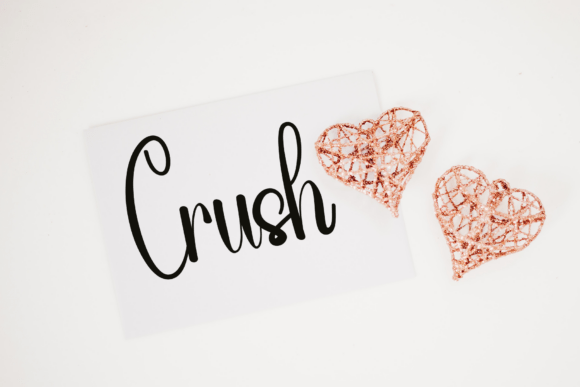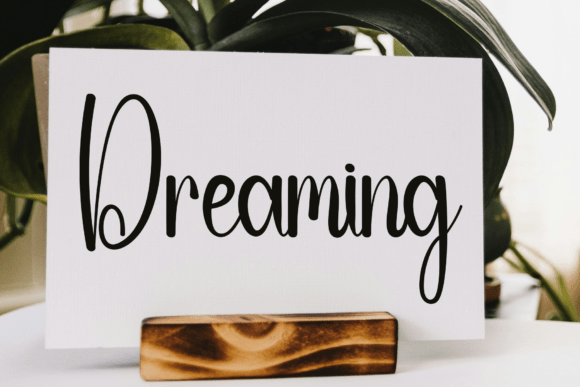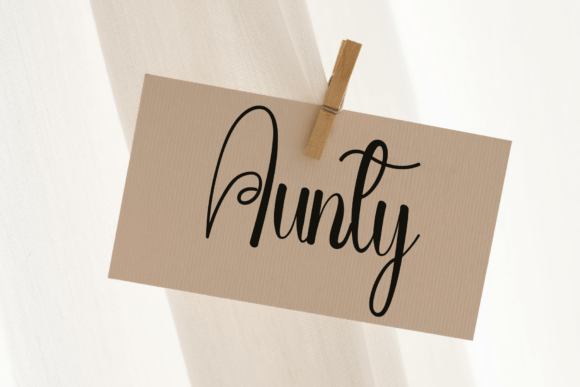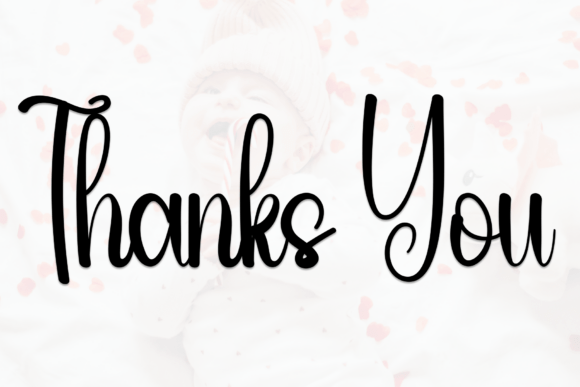
Unleashing the Casual Elegance of Baby Snow Font
Remember the last time you were brainstorming ideas for a design project, and suddenly, a spark of inspiration hit you? You grabbed a marker and started sketching out ideas on a notepad, letting your creativity flow freely. That’s exactly the kind of relaxed and sporty feel that Baby Snow Font embodies.
This charming handwritten font is designed to bring a touch of luxury and elegance to your designs, while still maintaining a casual, laid-back vibe. Whether you’re working on a branding project, creating wedding supplies, or crafting greeting cards, Baby Snow Font is the perfect choice to add a personal touch.
As a designer, you’re always on the lookout for unique and versatile fonts that can elevate your designs. Baby Snow Font is a valuable addition to your toolkit, offering endless possibilities for creative expression and experimentation.
Baby Snow Font Key Features
- Resolution: High-resolution font, suitable for printing and digital use
- Unique Characteristics: Whimsical, cursive design with a snowflake theme, perfect for winter-themed projects or children’s content
- Font Style: Script, cursive
- Language Support: Multilingual support, including Latin, Cyrillic, and Greek scripts
Design Review: Baby Snow Font
Overall, I think Baby Snow Font is a charming and playful script font. ✨ The designer has done a great job of capturing the whimsy and magic of the snow-covered season. The font is perfect for creating a festive atmosphere in winter-themed projects, such as greeting cards, social media posts, and even advertisements.
- ✨ The flowing, cursive lines create a sense of movement and fluidity.
- ✨ The use of subtle flourishes and ornaments adds a touch of elegance and sophistication.
- ✨ The font is highly legible, even at small sizes, making it suitable for a wide range of applications.
However, there are a few limitations:
- ⚠️ The font may not be suitable for formal or professional projects, as it’s a bit too playful and informal.
- ⚠️ The font’s design is quite consistent, which means it may not be the best choice for projects that require a lot of variation and contrast.
Overall, I think Baby Snow Font is a great addition to any designer’s toolkit, especially for winter-themed projects. With its charming design and high legibility, it’s sure to bring a smile to your audience’s faces.
The Baby Snow Font is ideal for:
- Christmas and winter-themed designs.
- Food and drink labels, especially for sweet treats.